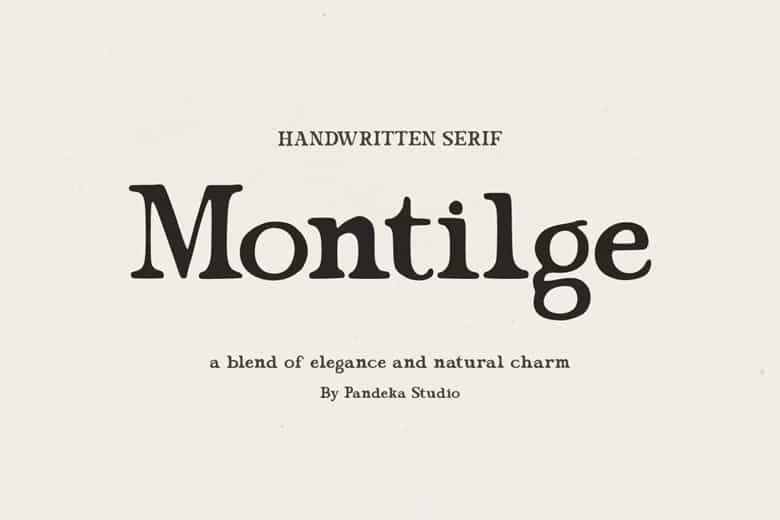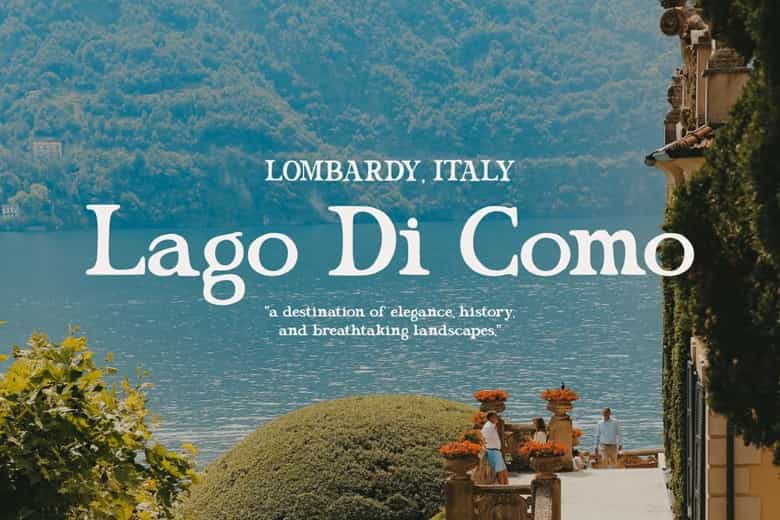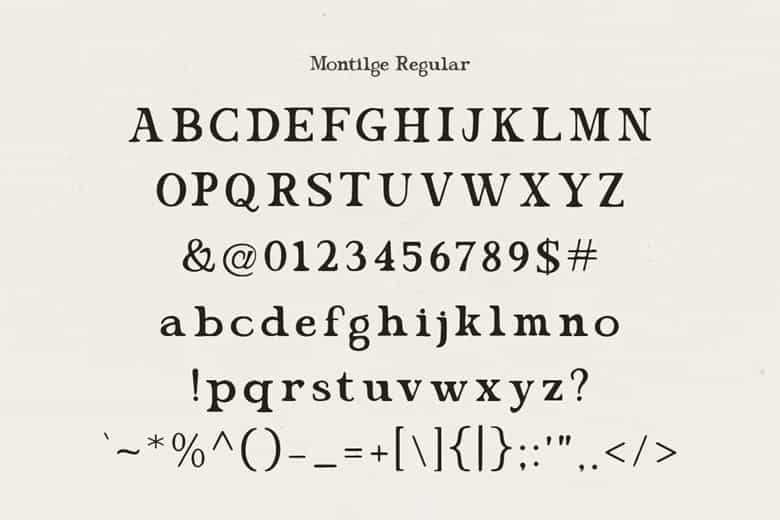
Montilge is a modern handwritten serif typeface created with elegant glyphs and has a complete rustic appearance. Best for traditional styles, typographical treatments, traditional advertising, logos, newspapers, magazines, and more. There is a personal approach in Montilge’s handwriting making the curve look warm and rather noble.